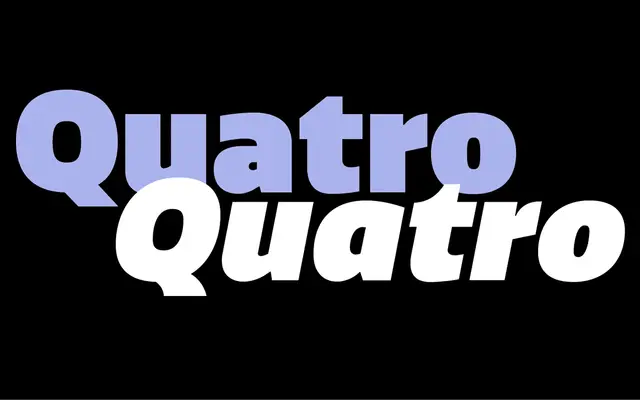
Quatro Sans
A geometric sans spanning nine weights from ExtraLight to UltraBlack, originally conceived as a single ultra-heavy style before expanding into a full family.
Built on construction principles that balance mechanical precision with a hand-drawn quality, Quatro Sans offers 18 styles across nine weights with matching italics. The family began life as a single UltraBlack cut and has since grown to cover the full weight range, making it useful across contexts from text to display. A companion slab, Quatro, shares the same underlying principles and is designed to work alongside the sans.
Quatro Sans balances geometric construction with humanist warmth, described by the foundry as sitting between machine and hand — placing it firmly in the geometric sans tradition with softened, contemporary detailing.